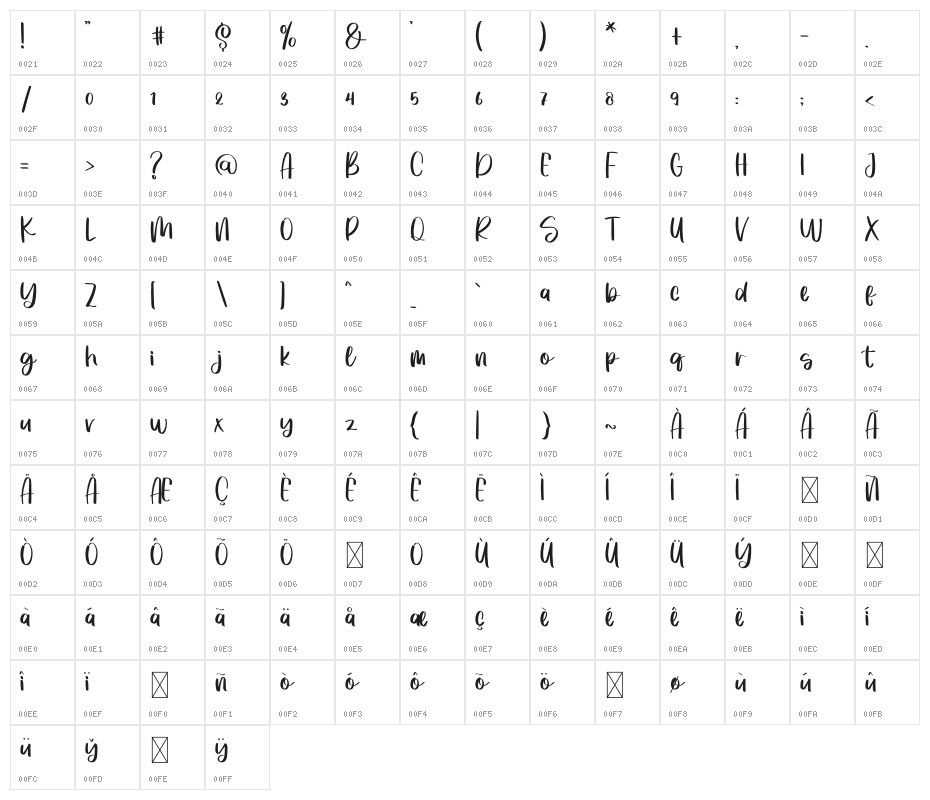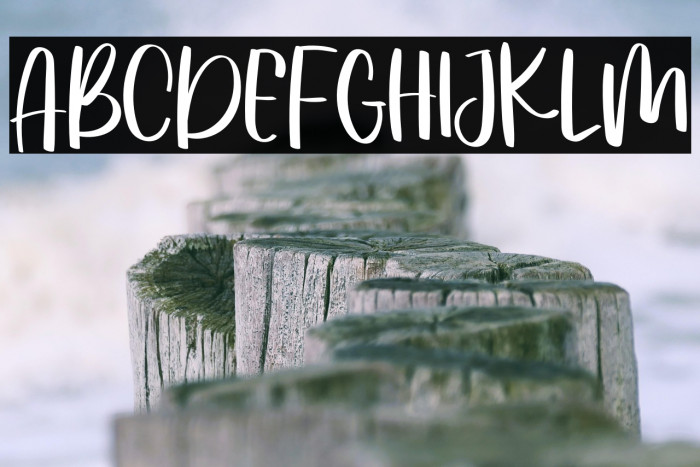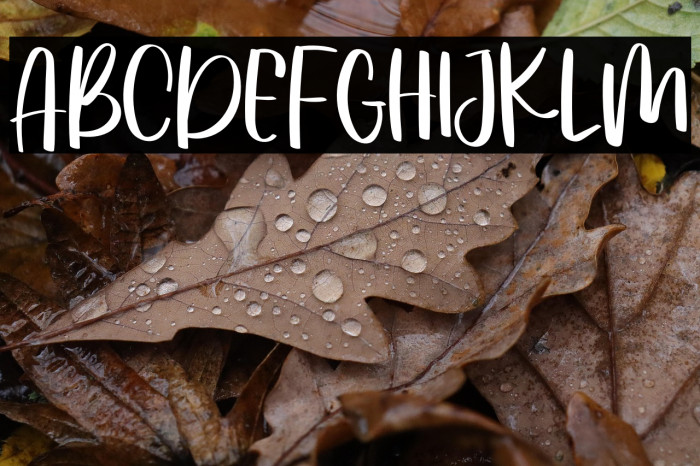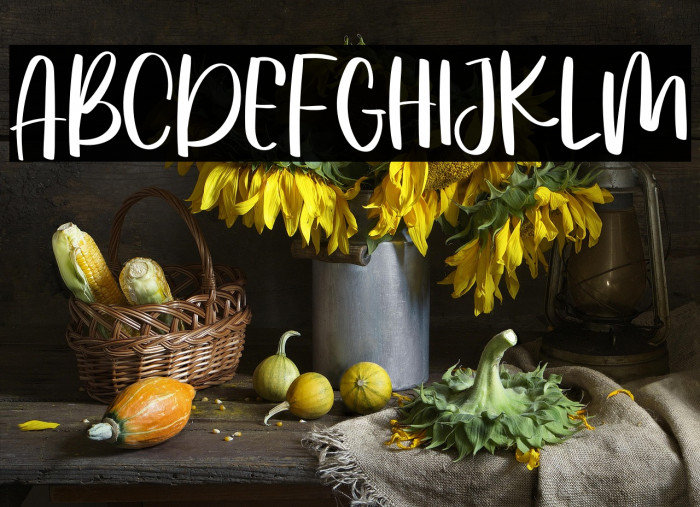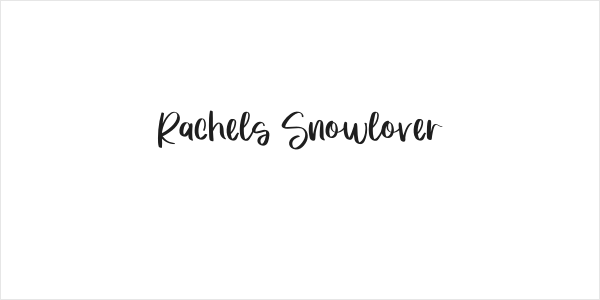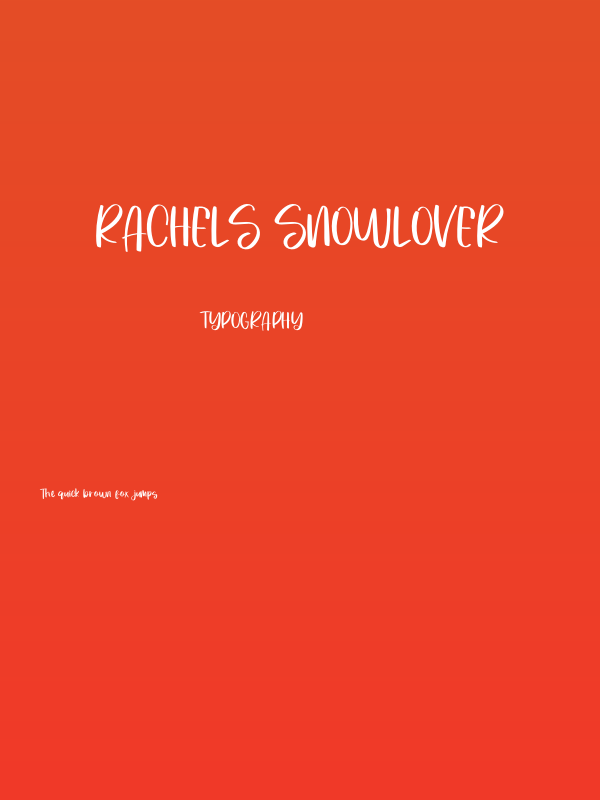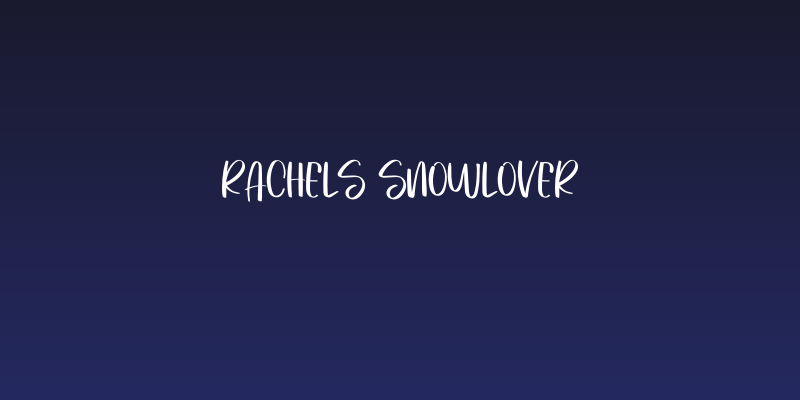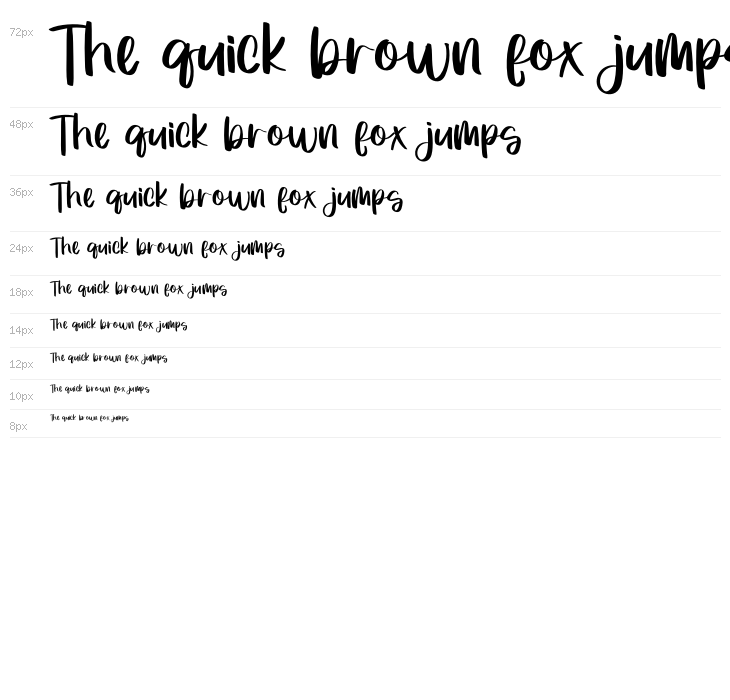
Rachels Snowlover Font
Rachels Snowlover Description
This font features a playful and whimsical handwritten style, characterized by its flowing, cursive-like letters. The uppercase letters are bold and slightly slanted, giving a dynamic and lively appearance. The lowercase letters maintain a consistent style, with rounded edges and a smooth flow, enhancing readability while retaining a casual, friendly vibe. The numbers and special characters are designed to match the overall aesthetic, ensuring a cohesive look across all text elements. This font is ideal for projects that require a personal touch, such as invitations, greeting cards, or branding materials that aim to convey warmth and approachability.